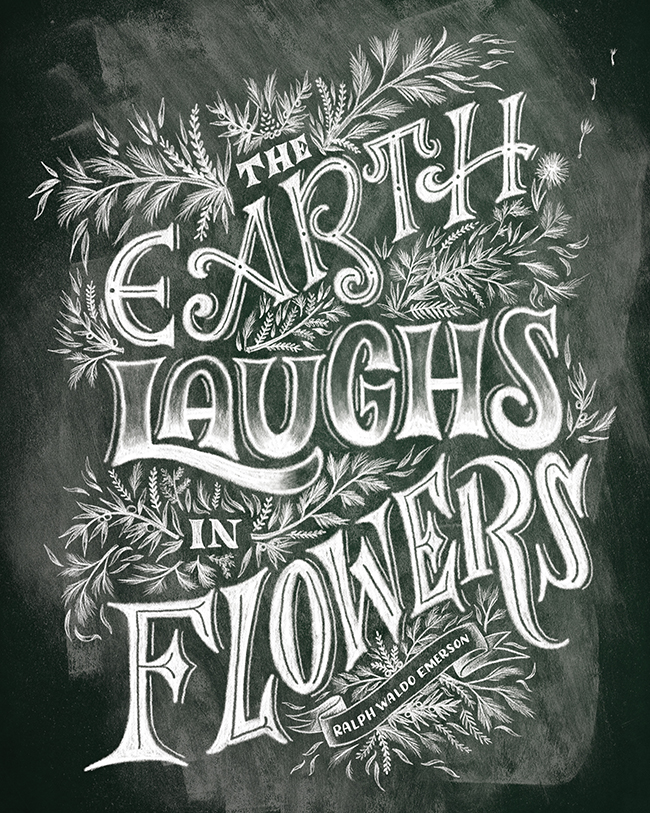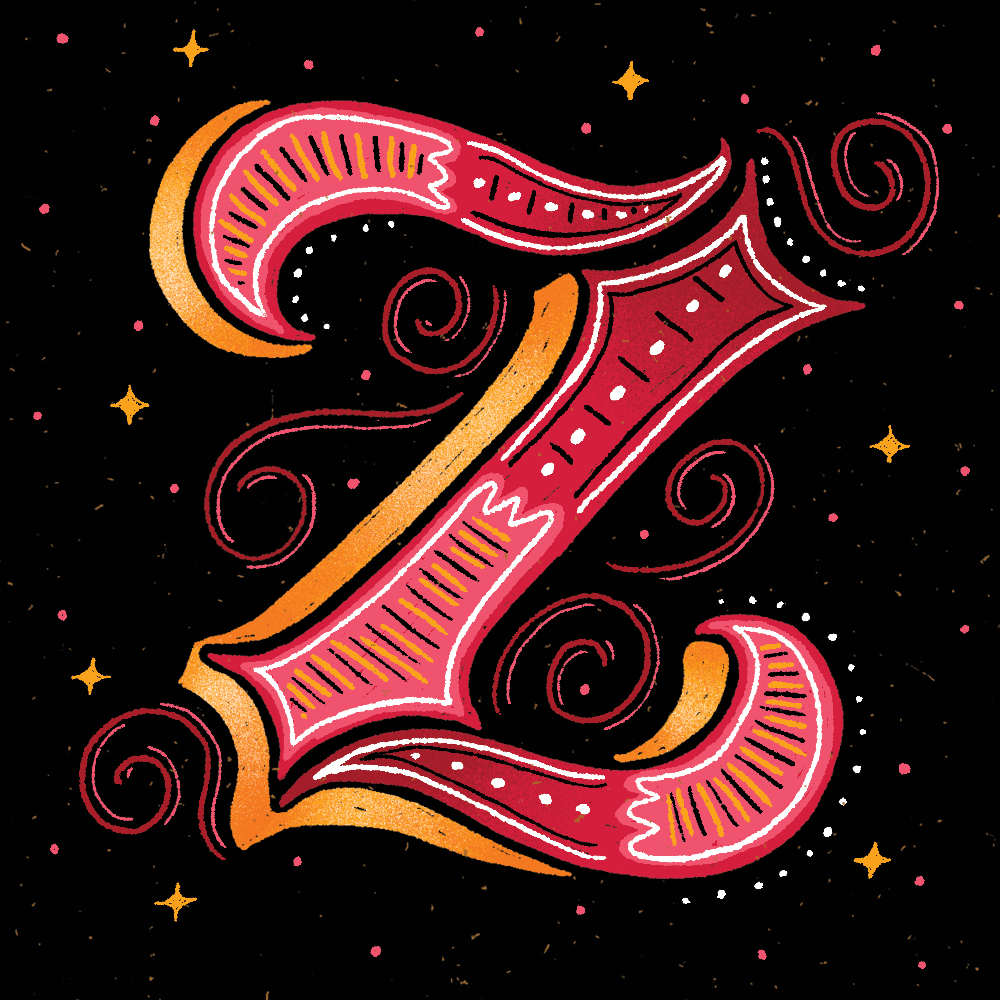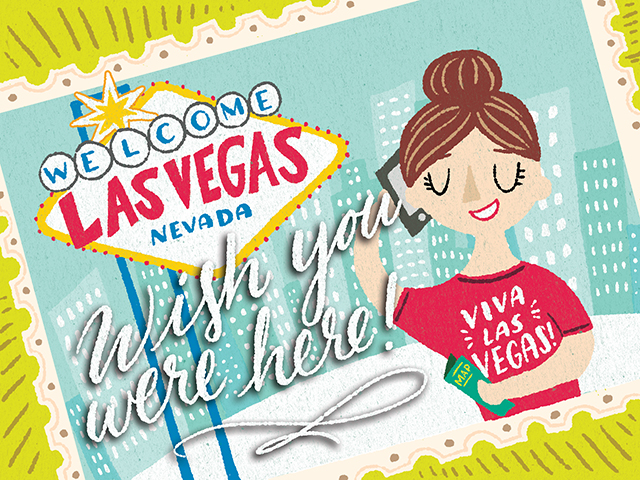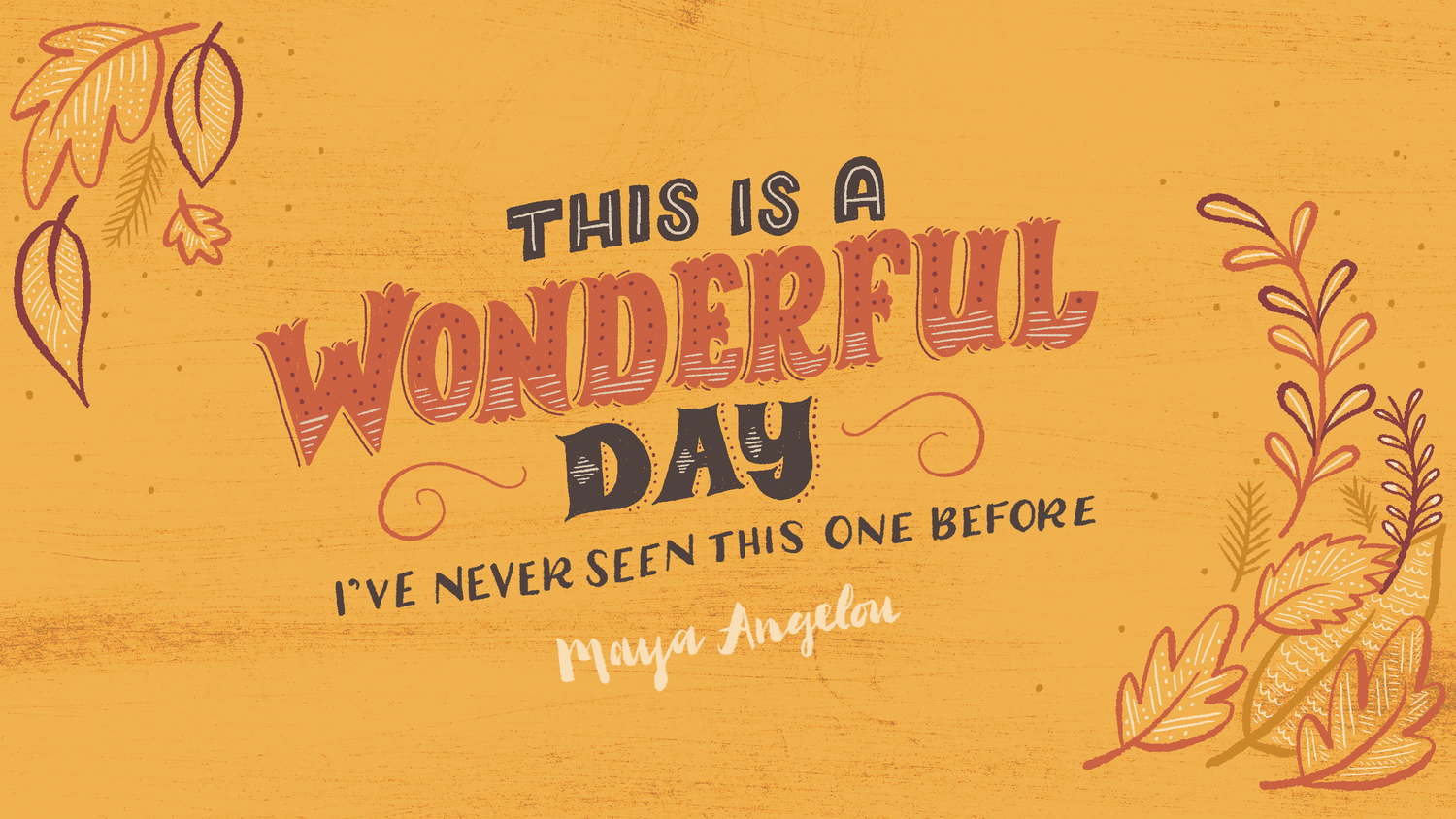
Lettering Legend - Shauna Lynn Panczyszyn
Shauna Lynn Panczyszyn is an incredibly versatile lettering artist and has experience within a number of different styles, including chalk lettering. She has worked with some very respected clients including Wall Street Journal, Scholastic, Harper Collins and Fortune Magazine. Shauna is also a co-author of one of my all time favourite books 'Creative Lettering & Beyond'.
Shauna works full time as a freelance lettering artist and illustrator, and despite being busy with regular client work still finds time to inspire others. Her social media accounts are always buzzing with thoughtful and inspiring content, and she even finds time to participate in the Hand Lettering HQ Facebook group that I manage. Shauna is very much a part of the lettering community, her work is fun and creative, and she really is a 'Lettering Legend' for all that she has done.
Shauna talks about the benefits of chalk lettering, she gives advice on transitioning from a job to full time freelancing, shares tips on creating a portfolio and more in the interview below.
An old fashioned circus mysteriously turns up in town and they give you the choice of lettering any circus attraction. Which old fashioned attraction would you choose, and what type of tools and equipment would you use to letter it?
Oh man, that’s a tough one. I would love to letter all the snack booths! There’s just something so fun about adapting the lettering to what you’re creating the lettering for. Sweets would be different from popcorn would be different from Hot Dogs. I would more than likely attempt to break out some One Shot and brushes for it, though I’ve never worked with it before, it seems like the proper tool. I would probably look at creating some chalkboard signs too, and have them switch out daily popcorn flavors or something.
You are one of the authors of the helpful book ‘Creative Lettering & Beyond’, your part of the book focusing on chalk lettering. Are there any major benefits to chalk lettering over other styles such as brush lettering or calligraphy?
I think the biggest benefit is that it’s temporary. Chalk won’t last forever unless it’s digital (my main medium when it comes to chalk work because it’s easier to send to clients that way) or photographed. Other than that, it will fade away, brush away, and disappear into oblivion. With that knowledge in mind, it allows you to really push the boundaries and since you can always erase (something you can’t easily do with ink and nibs), you can make mistakes and not worry about it ruining your overall piece, because it can be immediately fixed.
It’s also a very universally available and affordable medium. You need chalk and chalk paint to make a board. After that, it’s incredibly cheap to continue doing the style and playing with that medium.
Much of your lettering is very decorative and ornate and every piece of work very unique. Where do you draw inspiration from for the decorative features you use, and how do you keep things so varied?
I pull inspiration from vintage resources, so a lot of French/Italian/German art deco, vintage matchbooks, postcards… the list goes on. I just love vintage lettering, and love pulling little nuances from them. I have a crazy large book collection of vintage resources and reference it all every time I get the chance. If I feel stuck, I’ll open a book I’ve not looked at in a while and that usually sparks some new ideas.
After some hard work and some great experience you were able to transition into full time freelance lettering and illustration work. What advice would you give those looking to transition, or those that have newly transitioned into full time freelance lettering work?
I actually didn’t really transition. I was fired from an agency job I moved for a few months after starting there. So it was either job hunt or jump into freelance full time. Obviously, I went with freelance. I did already have some experience freelancing outside of work for about 2 years at that point, but it really wasn’t much that I did, just a project here or there.
If you’re looking to transition, I would highly recommend you don’t dive in head first. I’ve seen many young designers think that freelance is this easily achievable thing. I’ve worked more than 40 hour workweeks since I began 4 years ago. So you definitely need to realize going in that yes, there’s more freedom to set your own schedule, but you are going to be working harder than you ever have in your life.